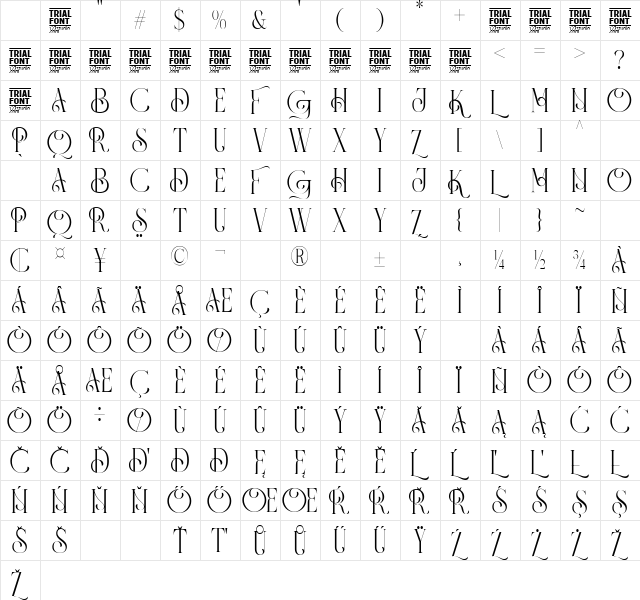
Complete Panorama Ligatures Demo Light glyph index. Displaying only characters natively supported by Panorama Ligatures Demo Light font.
Panorama Ligatures Demo is a composed and adaptable typeface that performs quietly and consistently across a wide range of design contexts. Its slender proportions lend an understated elegance to any composition.